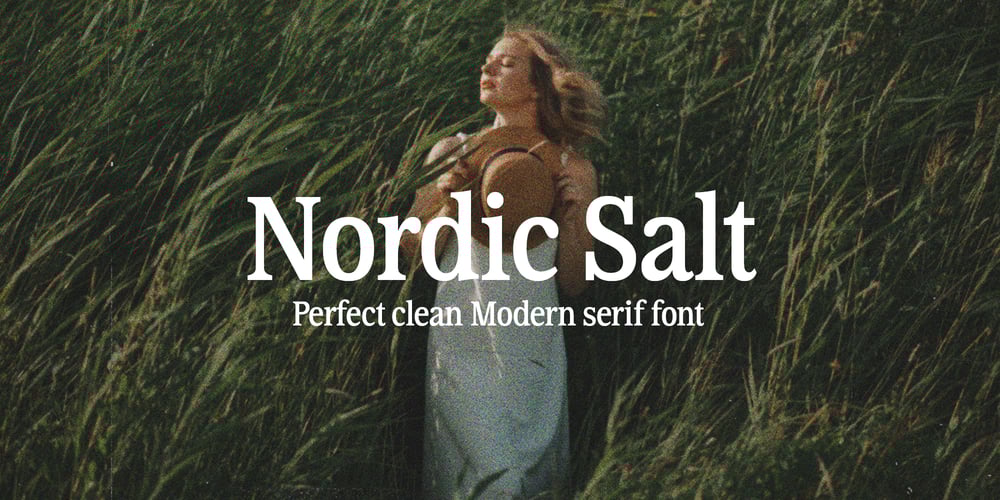
Nordic Salt Font Family was designed by Dmitrii Chirkov and published by Supfonts. Nordic Salt contains 1 styles and family package options. Nordic Salt – a perfect clean modern serifFont is an open type with clean shapes and precise kerning.Language support: All European languagesDon’t forget to subscribe so you don’t miss out on the new awesome fontsDima